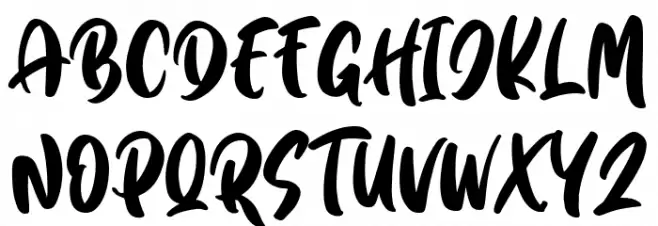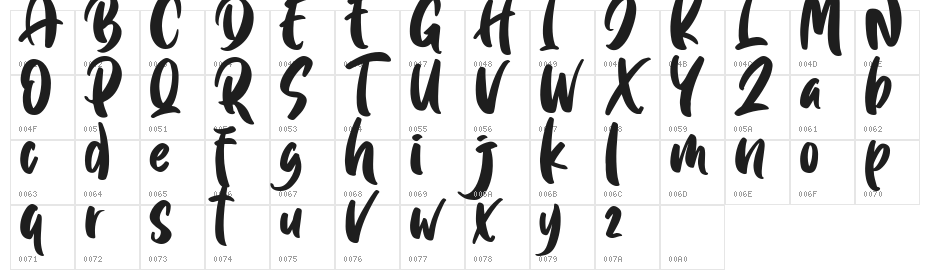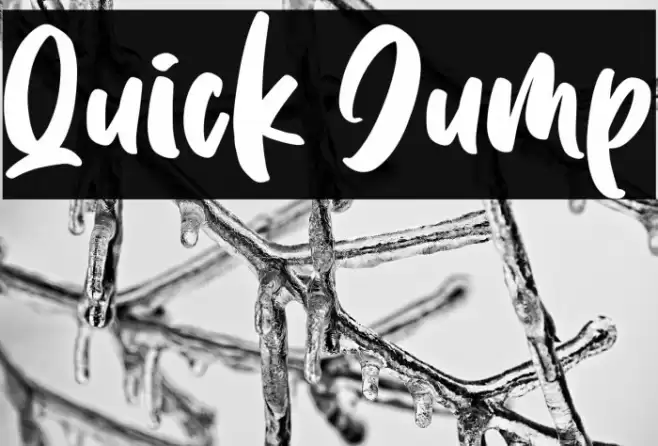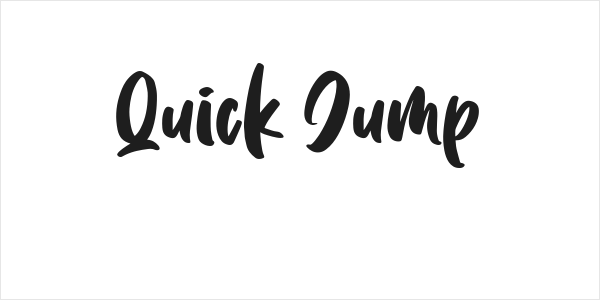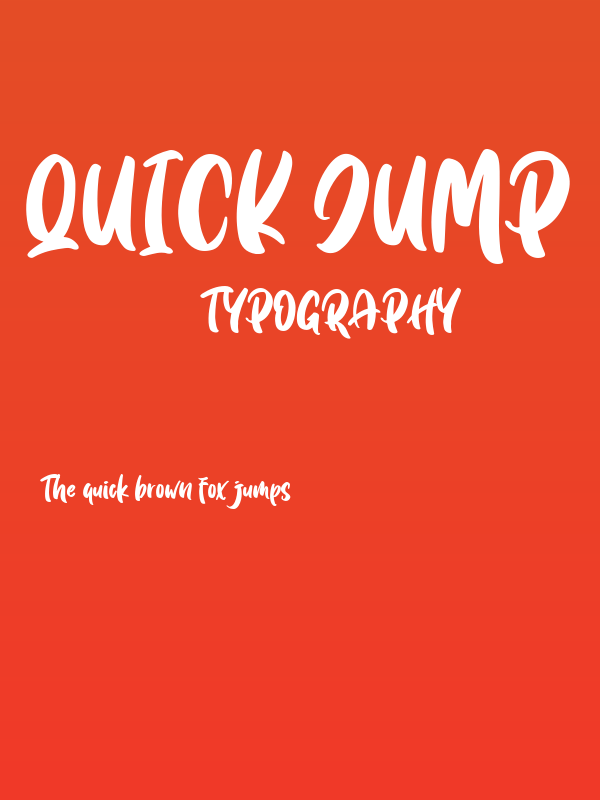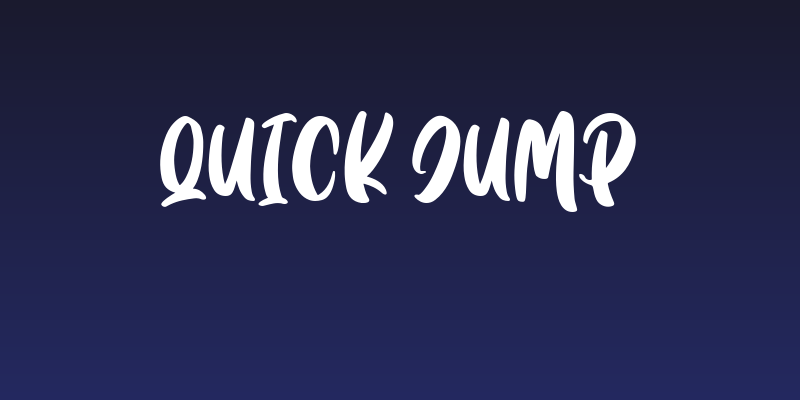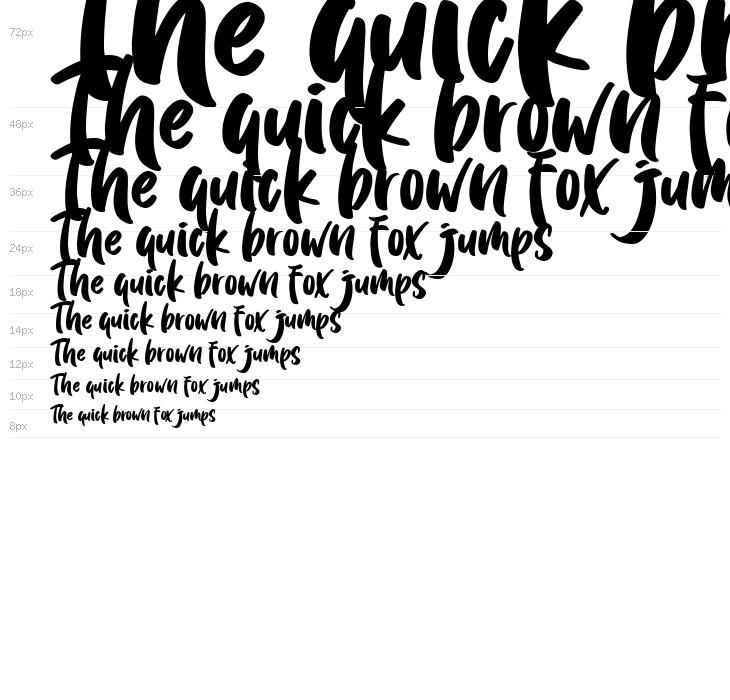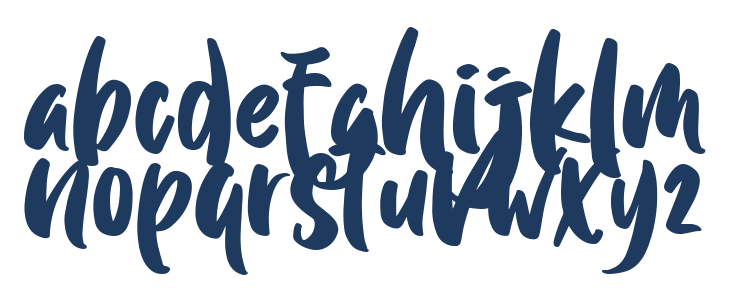
Quick Jump Font
Quick Jump Description
This font features a bold and expressive script style with a hand-painted appearance. The letters are characterized by thick, flowing strokes that convey a sense of energy and movement. The uppercase and lowercase letters maintain a consistent style, with some playful variations in the curves and angles, adding to its dynamic feel. The font has a modern, artistic vibe, making it suitable for creative projects. Its bold presence ensures that it stands out, while the smooth curves provide a sense of elegance and fluidity. The overall design is both eye-catching and versatile, perfect for making a statement.